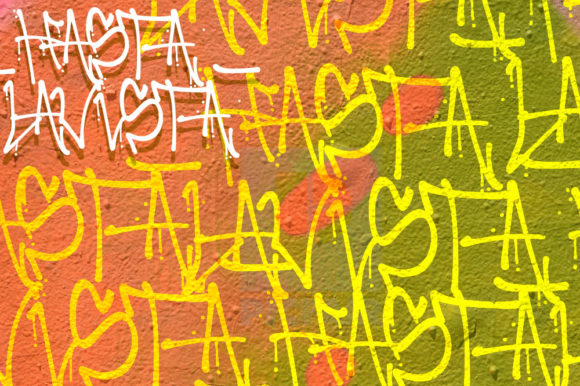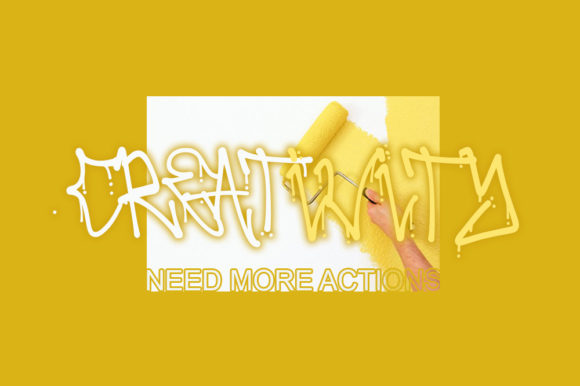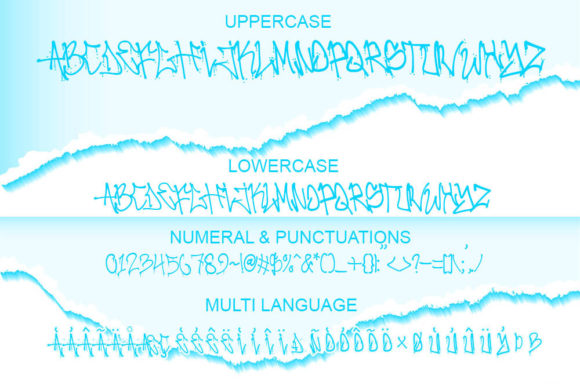
Unleash Your Creativity with Canester Font: The Ultimate Graffiti-Styled Display Font
Are you a designer or crafter looking for a unique and eye-catching font to elevate your designs? Look no further than Canester Font, a creepy, graffiti-styled display font that exudes a street art vibe. With its bold and edgy aesthetic, Canester Font is perfect for a wide range of design projects, from t-shirts and sportswear to logos, advertisements, clothing, and more.
The Urban Edge of Canester Font
Canester Font is not just any ordinary font. Its graffiti-styled design gives it a raw, urban edge that’s sure to grab attention. The font’s bold lines, irregular shapes, and distressed texture evoke the spirit of street art, making it perfect for designers who want to add a touch of rebellion to their work.
Whether you’re designing for fashion, advertising, or editorial projects, Canester Font is sure to make a statement. Its versatility and flexibility make it easy to use in a variety of contexts, from bold headlines to catchy slogans.
What Makes Canester Font So Special?
So, what sets Canester Font apart from other fonts? Here are just a few features that make it a standout:
- Graffiti-styled design: Canester Font’s graffiti-inspired design gives it a unique, street art vibe that’s sure to turn heads.
- Bold and edgy aesthetic: The font’s bold lines, irregular shapes, and distressed texture make it perfect for designs that require a bold statement.
- Highly versatile: Canester Font can be used in a wide range of design projects, from fashion and advertising to editorial and packaging.
- Easy to use: The font is easy to read and works well in both large and small sizes, making it perfect for a variety of applications.
Canester Font is a dream come true for designers and crafters who want to add a touch of urban grit to their work. Whether you’re creating:
- T-shirts and sportswear: Canester Font is perfect for designing bold, eye-catching apparel that’s sure to turn heads.
- Logos and branding: The font’s unique design makes it perfect for creating memorable logos and branding materials.
- Advertisements and marketing materials: Canester Font’s bold aesthetic makes it perfect for creating attention-grabbing ads and marketing materials.
- Clothing and accessories: The font’s edgy vibe makes it perfect for designing clothing and accessories that require a bold statement.
Tips for Using Canester Font
Here are a few tips for getting the most out of Canester Font:
- Use it boldly: Canester Font is designed to make a statement, so don’t be afraid to use it in bold, eye-catching ways.
- Experiment with colors: The font’s graffiti-styled design looks great in a variety of colors, so don’t be afraid to experiment and find the perfect hue for your design.
- Pair it with other fonts: Canester Font works well with a variety of other fonts, so don’t be afraid to experiment with different pairings to find the perfect combination.
| Font Name | Canester Font |
| Author | fluffyartstudio |